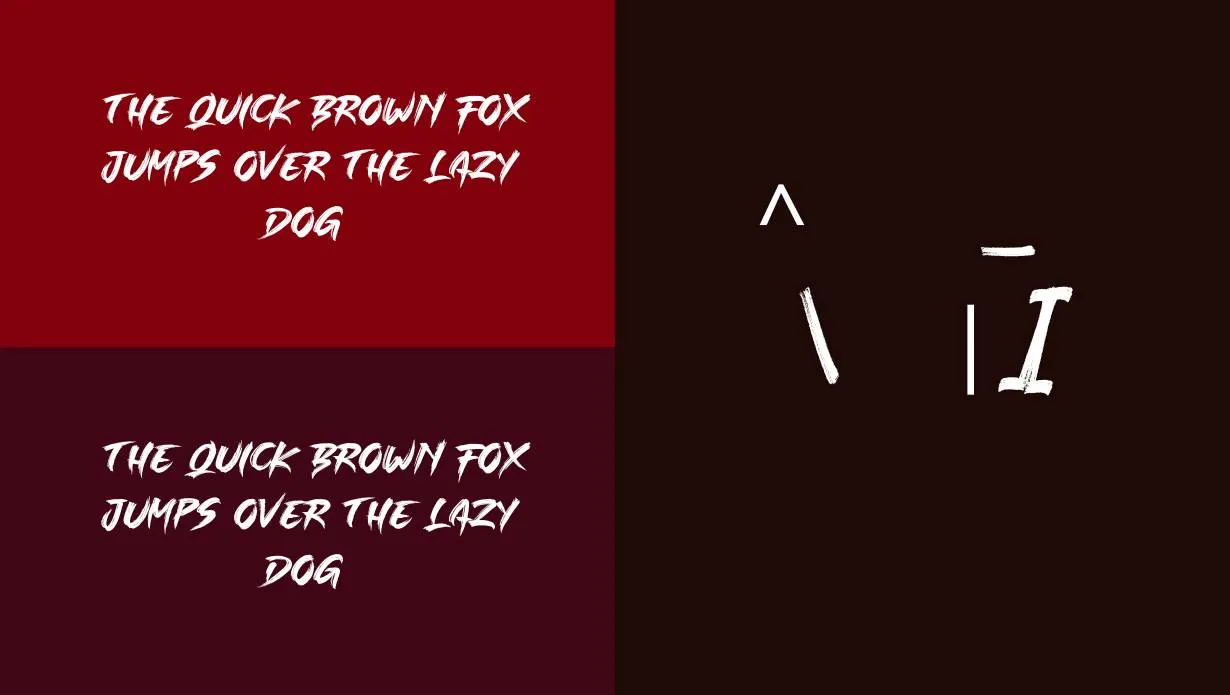
Single Fighter Font is a brush font that was created by Subectype & Orenari along with a demo version for personal use only. This font has a street-style appearance making it perfect for creative projects. It has durable, strong, and bold characters in uppercase, lowercase, numbers, etc.
It has quick strokes that can convey a loud and understandable message to the audience.